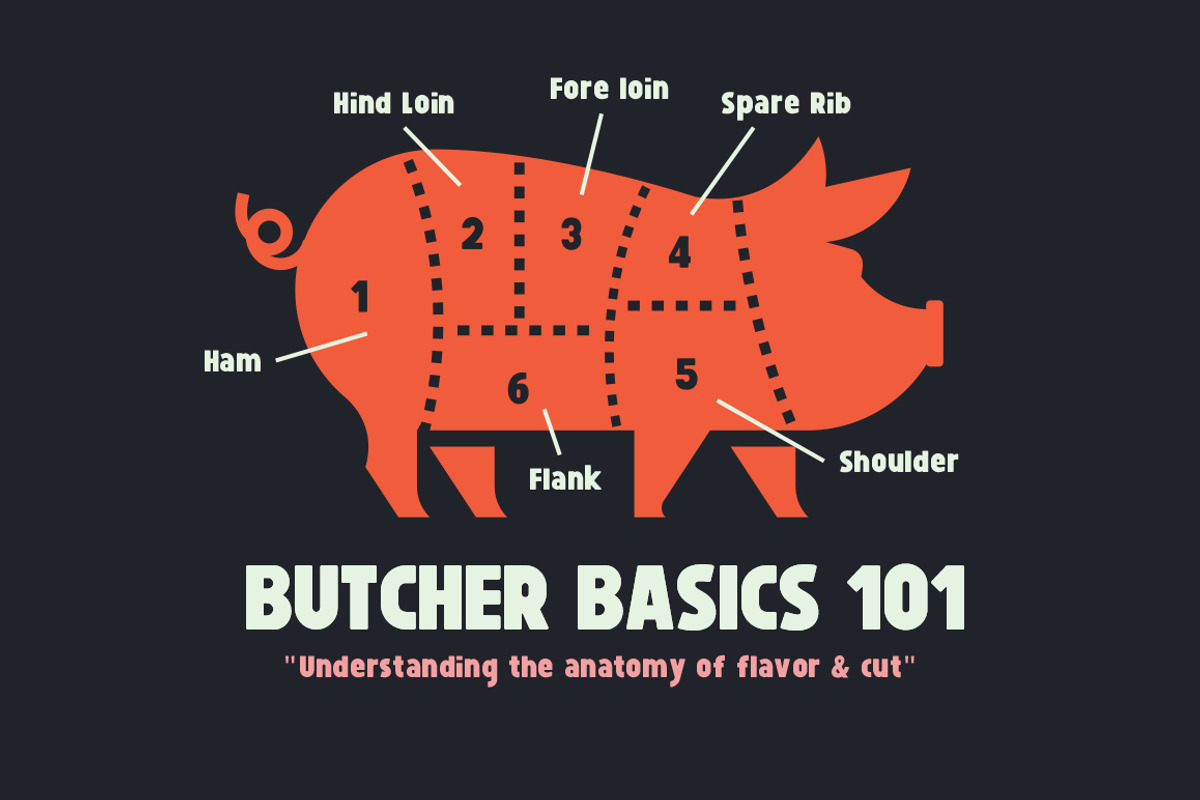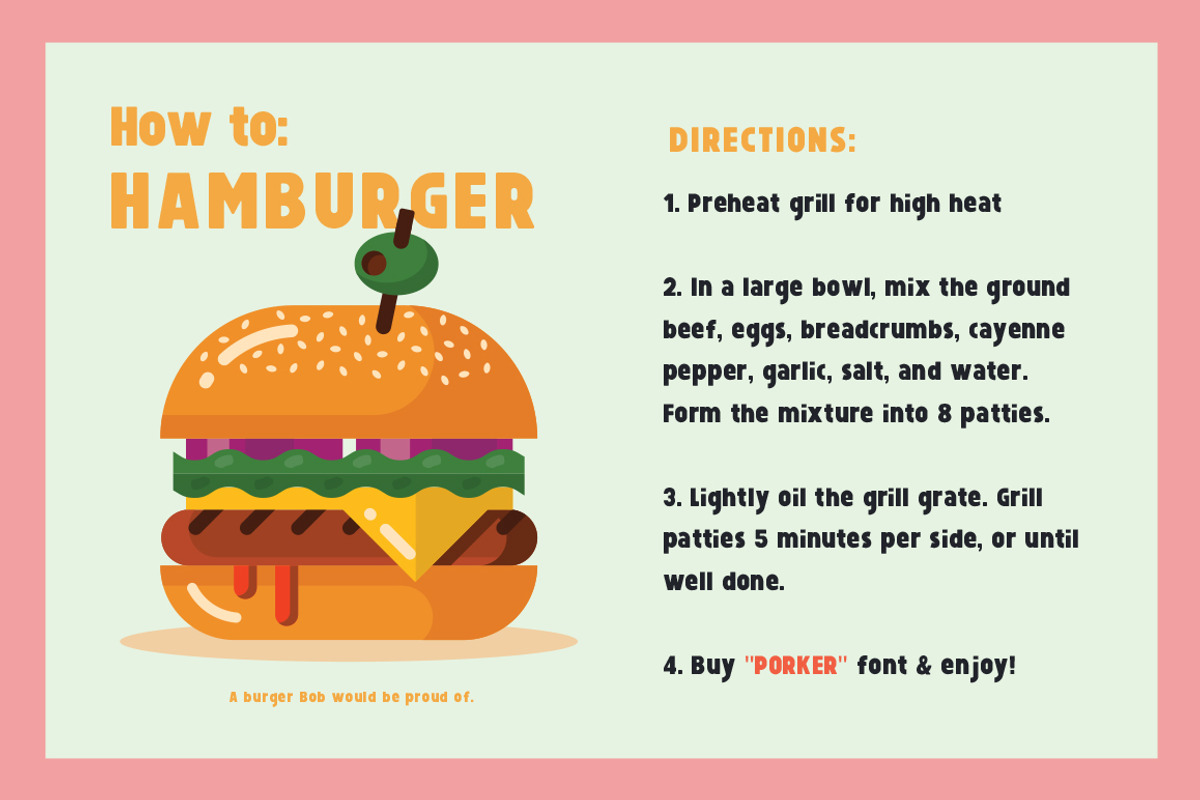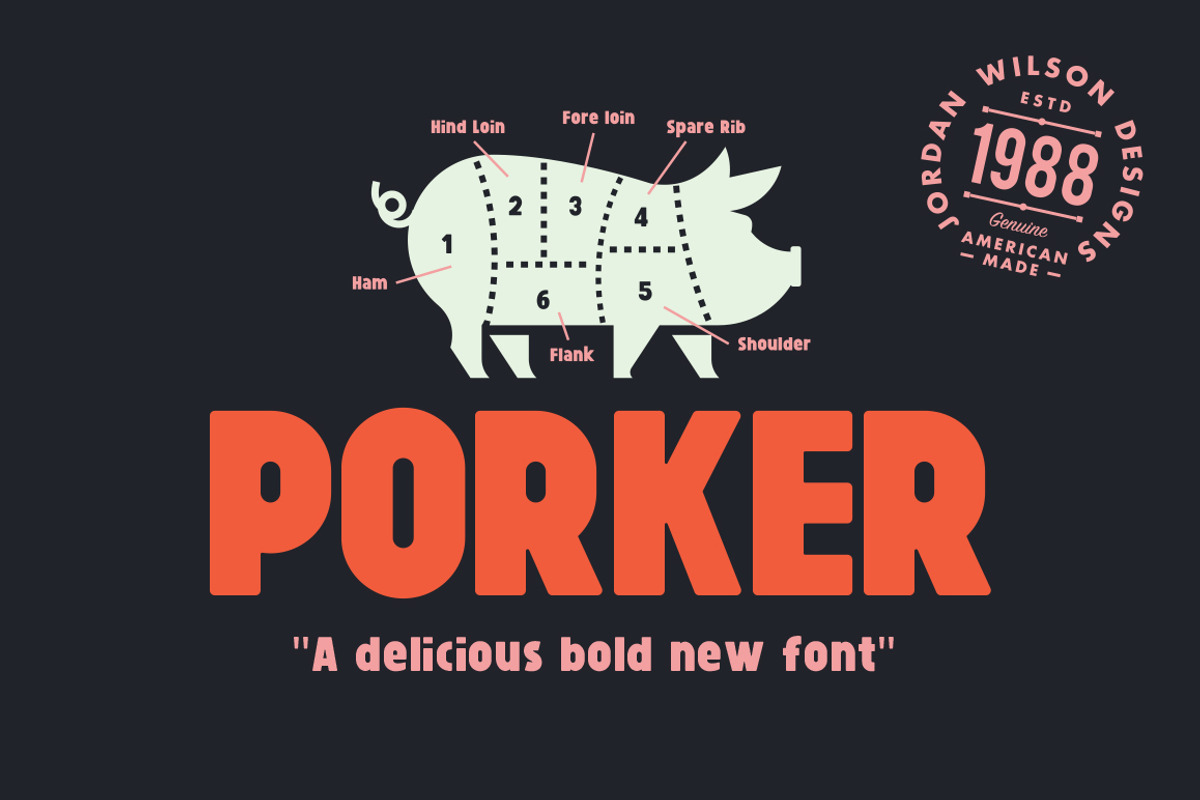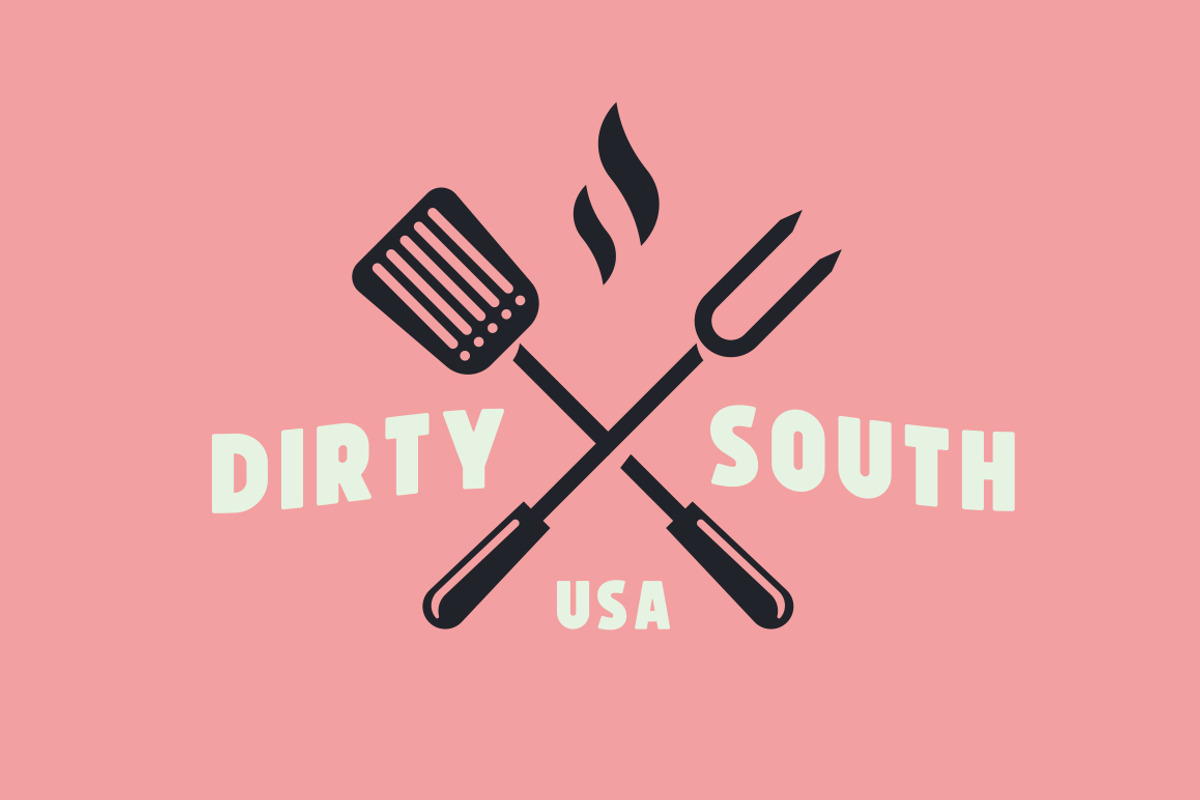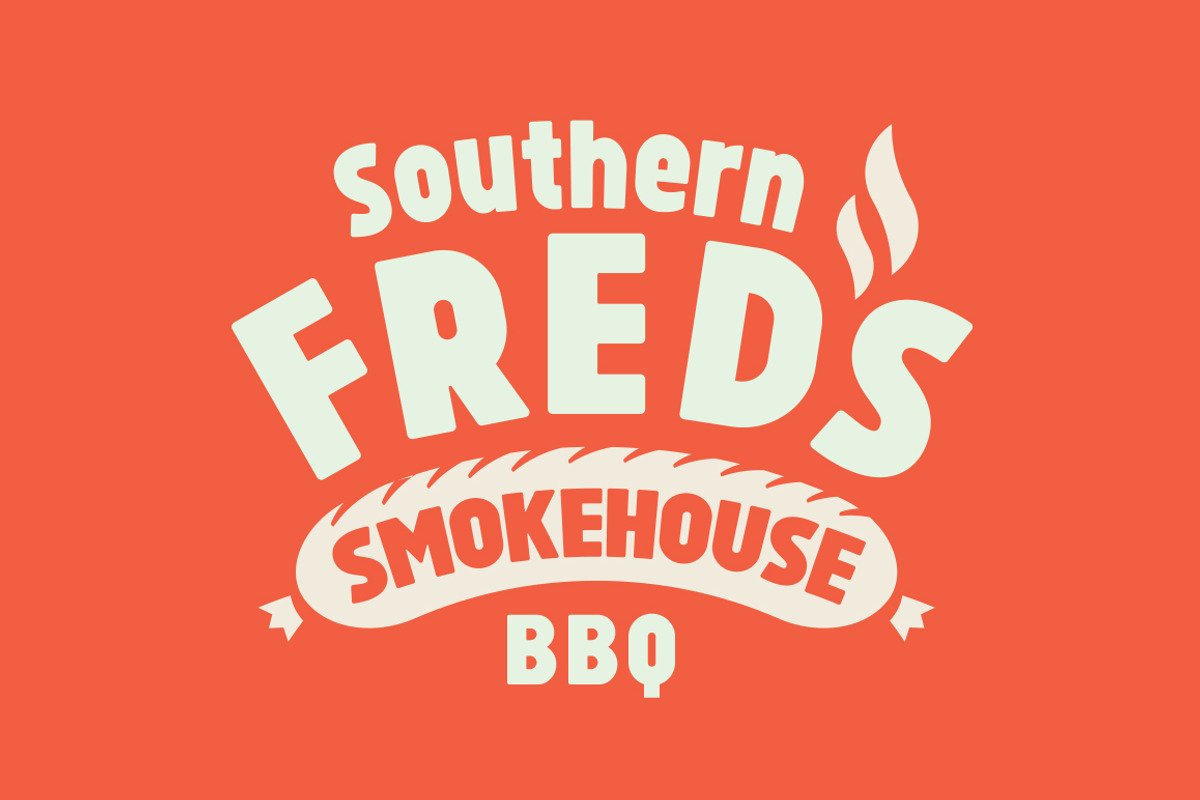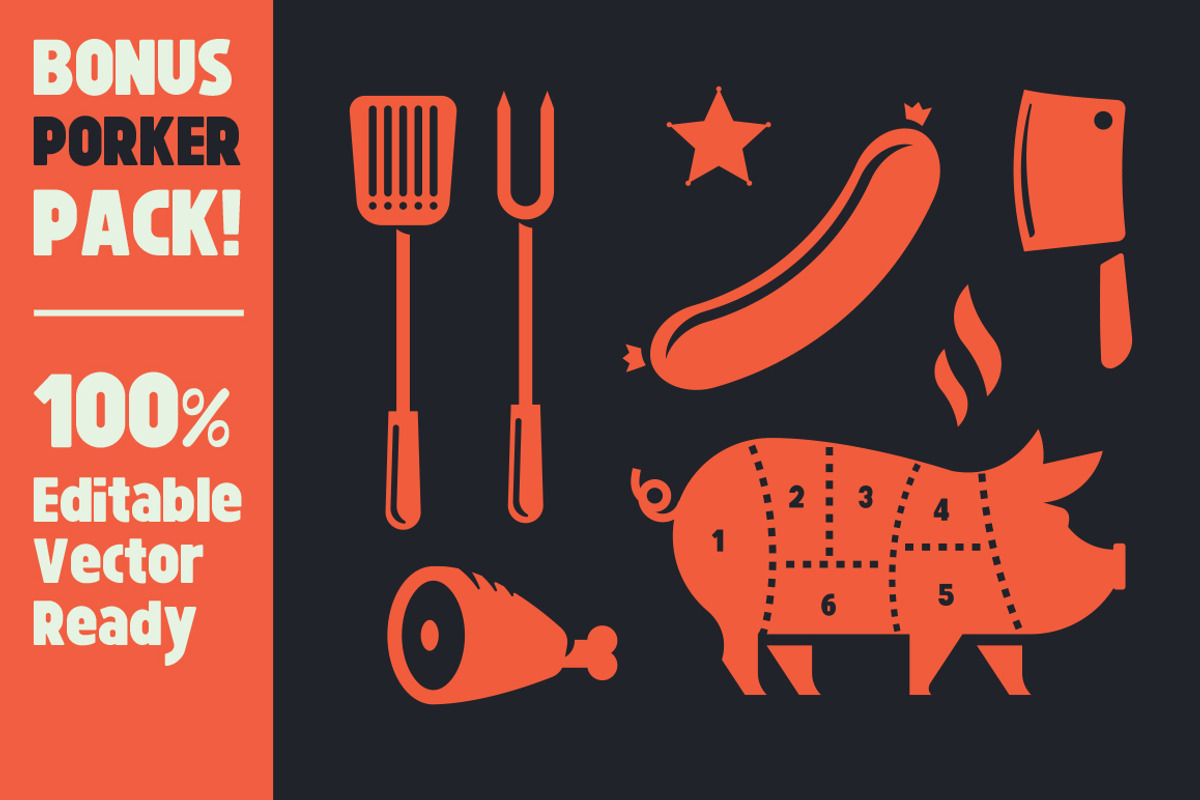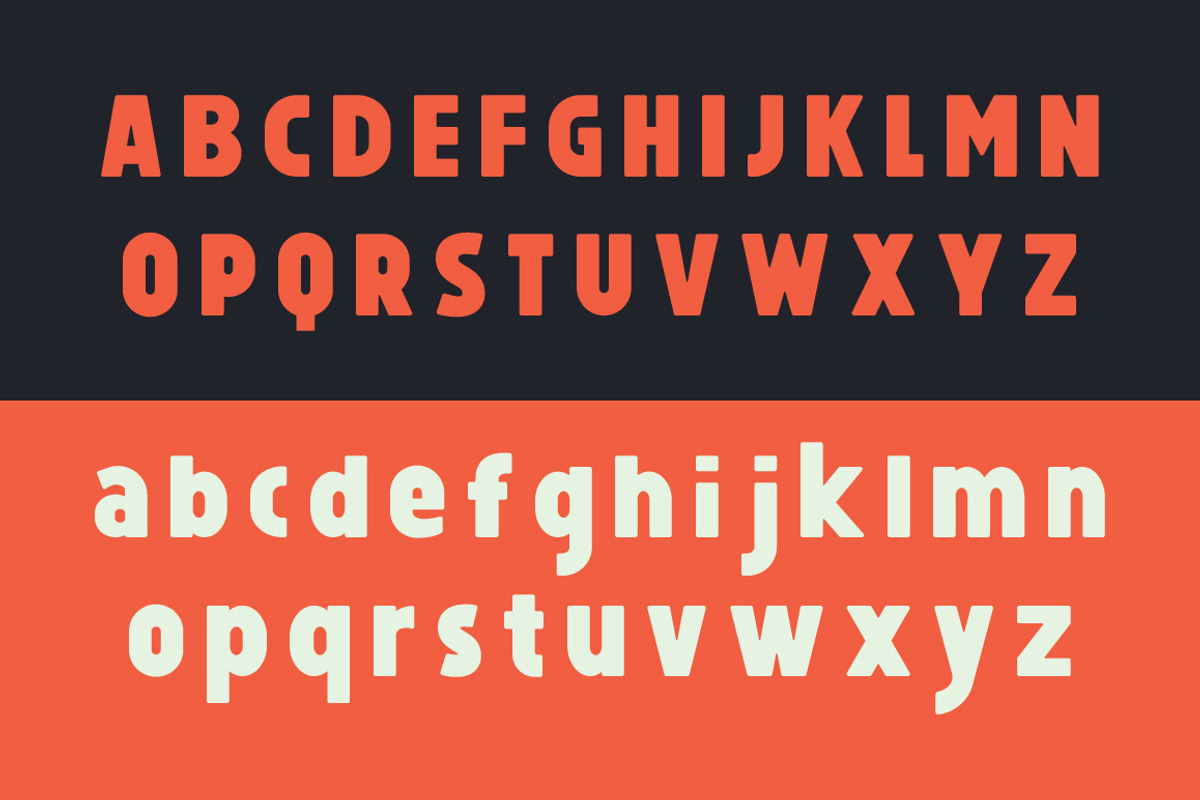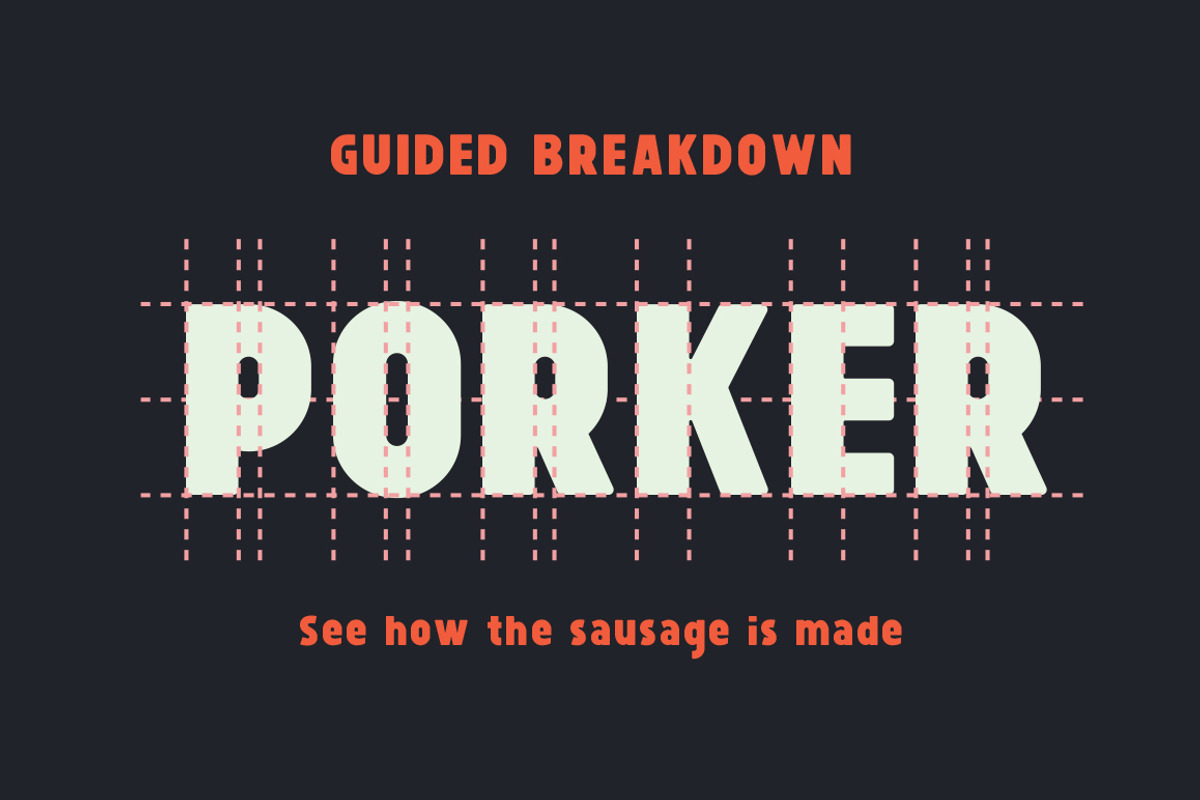
Porker Font (+ Bonus Pack)
Porker Font (+ Bonus Pack) by Jordan Wilson is a font selected for branding, posters, packaging, typography.
- Stout, condensed uppercase partners effortlessly with the weighted lowercase, then each corner rounded out giving the type a unique vintage
Porker Font (+ Bonus Pack) by Jordan Wilson fits naturally into Branding, posters, packaging, typography.